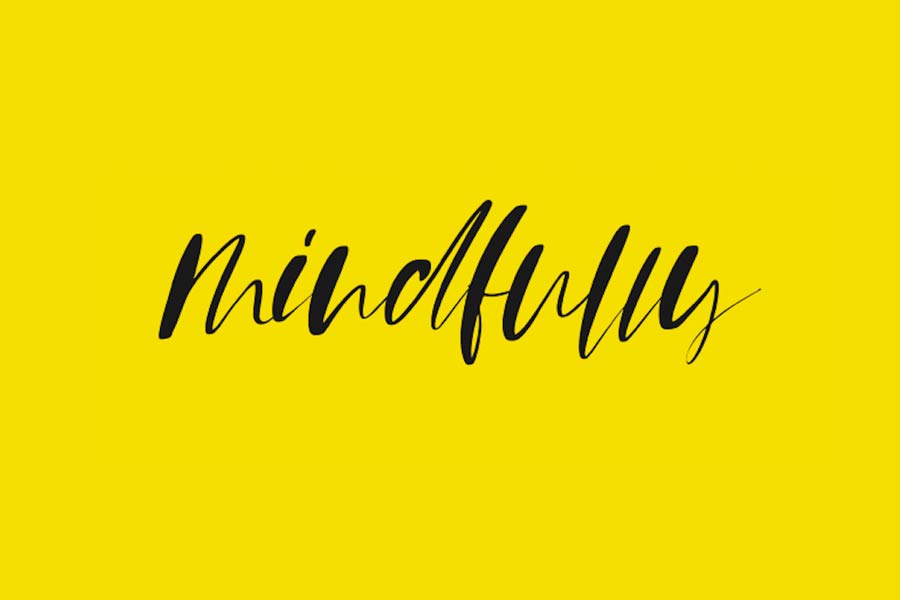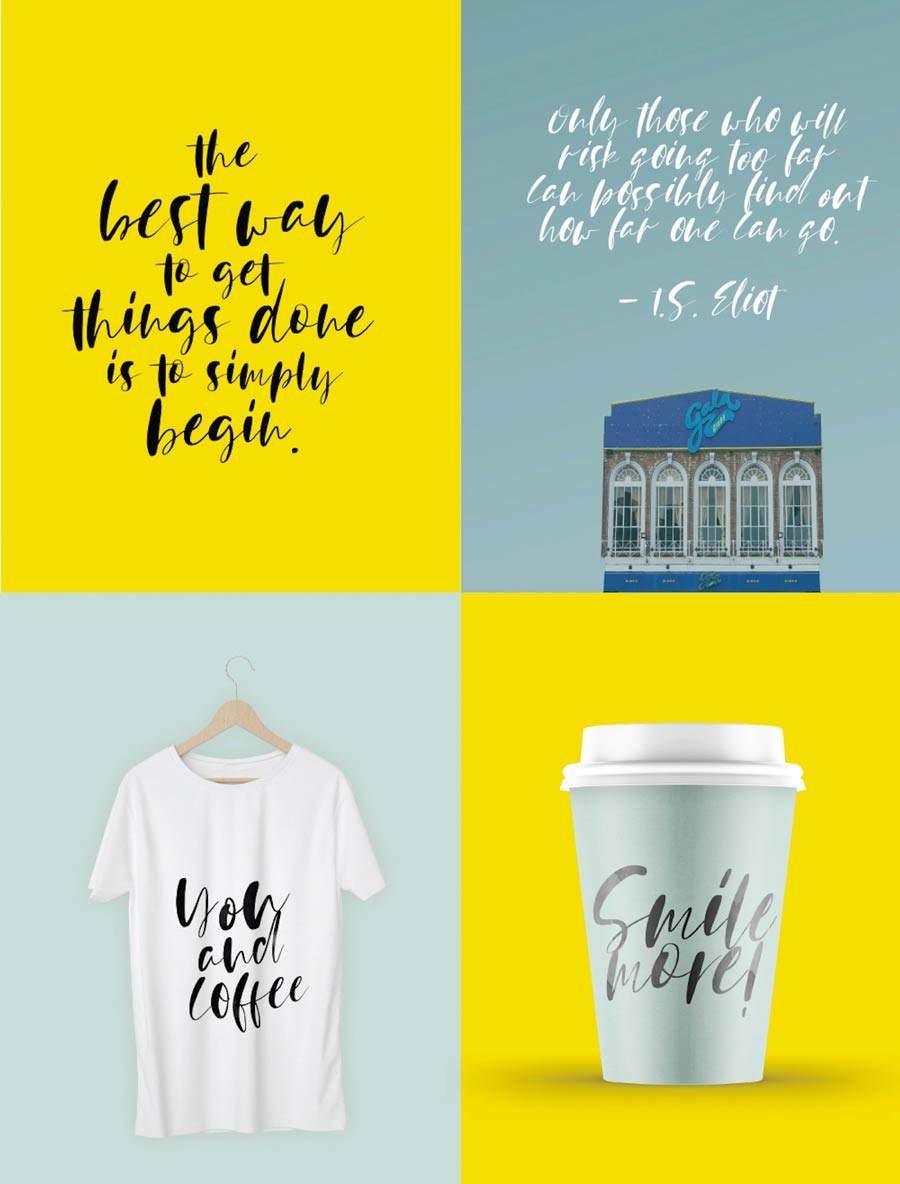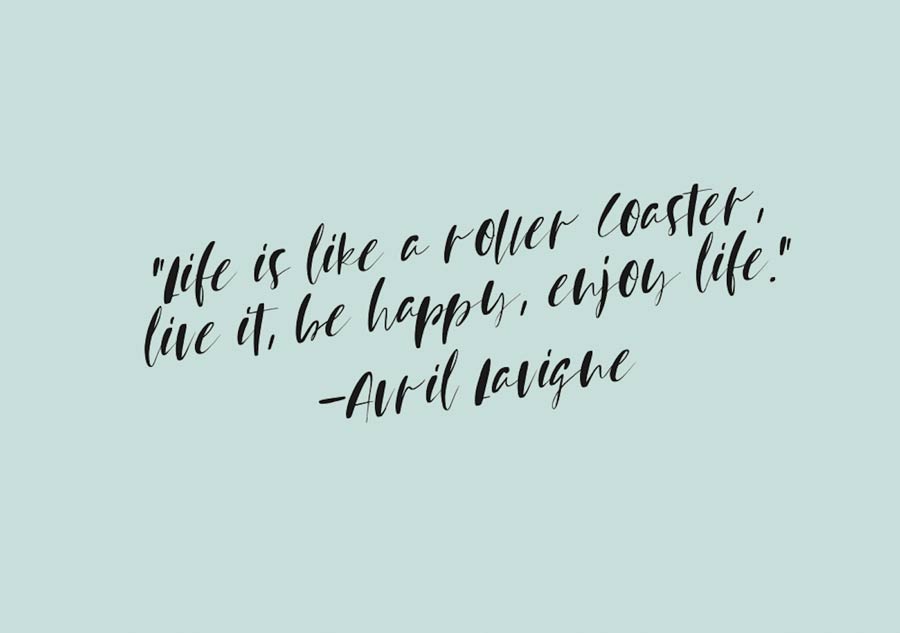
Mindfully is a tastefully handcrafted brush font that brings out beautifully calligraphic typographic. Designed by Sinikka Li, this font features fluidic stroke styles, each characters were harmonically drawn from the thicker to the thinner strokes. Mindfully works great on many design applications including merchandise designs, posters, invitation cards, labels and more. It works great even with just the font only.
- Designer: Sinikka Li
- Styles: 4 (Regular, Regular Italic, Alternate and Alternate Italic)